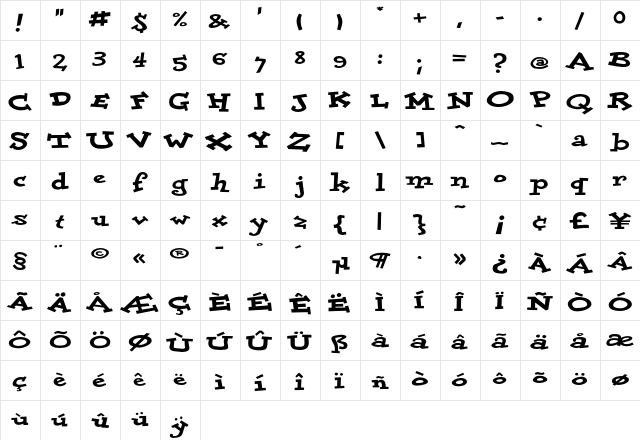
DoloresBlack Regular Font Preview
DoloresBlack Regular
DoloresBlack Regular Font Details
Design Context for DoloresBlack Typeface
DoloresBlack is a composed and adaptable typeface that performs quietly and consistently across a wide range of design contexts.